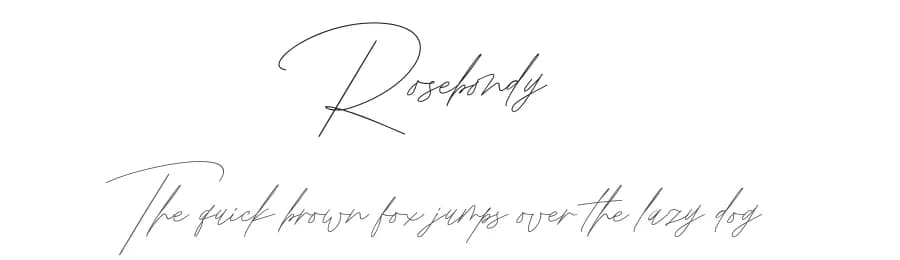
About Rosebondy Font
Rosebondy is a signature elegant font
Rosebondy Specifications
| Glyph Count | 75 glyphs |
| Designer | FADHIL |
Rosebondy Font is a script font that shines as a display or heading face. Pair it with a clean sans-serif or serif font for body text β the contrast creates a clear hierarchy while the two styles stay balanced and easy to read.
Rosebondy Font